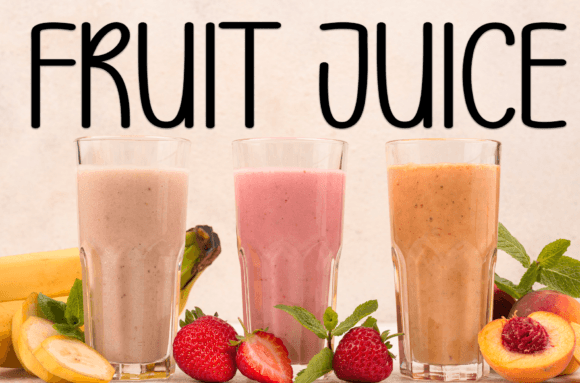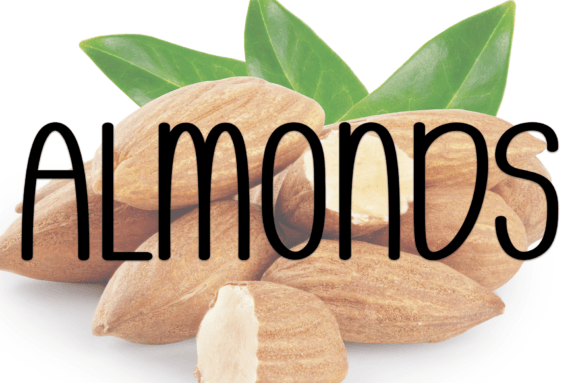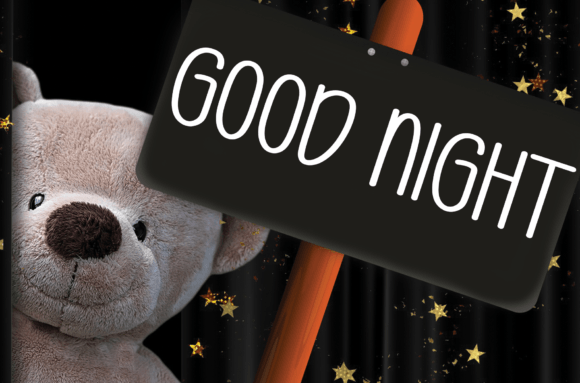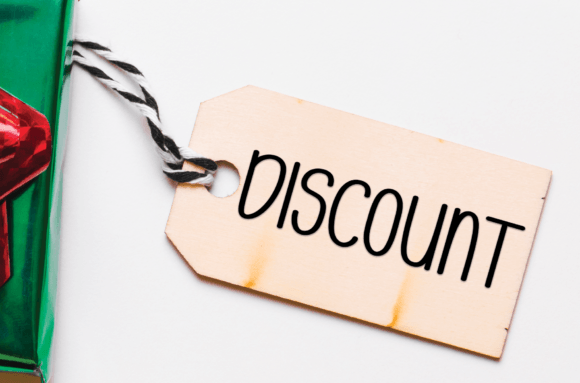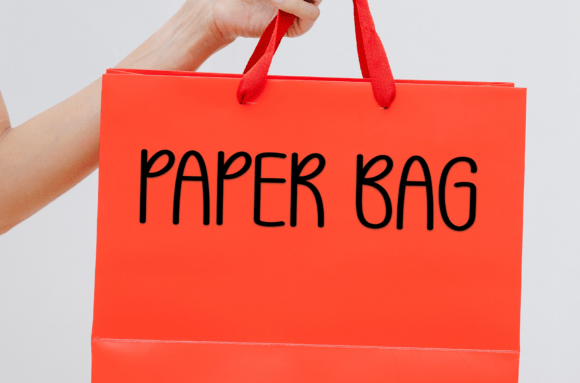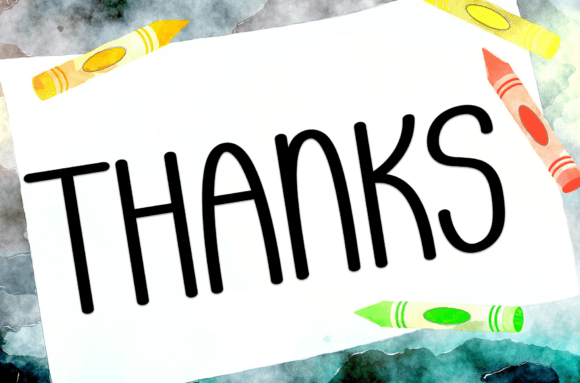
Introduction to New Record Font
Do you ever find yourself stuck in front of your design software, struggling to bring your creative vision to life? You’ve got a clear idea of what you want to achieve, but the right font seems elusive. This is where the New Record Font comes in – a sweet and friendly handwritten font that’s perfect for adding a fun touch to your designs.
Key Features of New Record Font
- High-quality design resource for creative projects, ideal for music, video, or film productions.
- Designed with a modern aesthetic, featuring clean lines and a sophisticated look that can elevate any creative project.
- Includes a wide range of glyphs and characters, ensuring versatility and flexibility in its applications.
Honest Review: New Record Font
I recently had the chance to work with the New Record Font, and I have to say, it’s been a game-changer for my design projects. This font is a fantastic addition to any design resource collection, offering a unique and eye-catching look that’s perfect for creative projects.
One of the standout features of the New Record Font is its high quality design. The clean lines, crisp shapes, and beautiful typography make it a joy to work with. Plus, the transparent background allows for seamless integration with any design element.
What works well with the New Record Font? ✨ Here are a few of my favorite features:
- Easy to read and understand even at small font sizes
- Works well for a variety of design styles, from modern to vintage
However, there are a few limitations to consider ⚠️:
- May not be suitable for very formal or professional designs
- Some users may find the font too playful or attention-seeking
Getting the Most Out of New Record Font
To get the most out of New Record Font, experiment with different font sizes, colors, and styles. You can also use it in combination with other design elements to create a unique and eye-catching design.
New Record Font is perfect for a variety of design projects, including posters, flyers, and social media graphics. It’s also great for creating a consistent brand identity across your marketing materials.